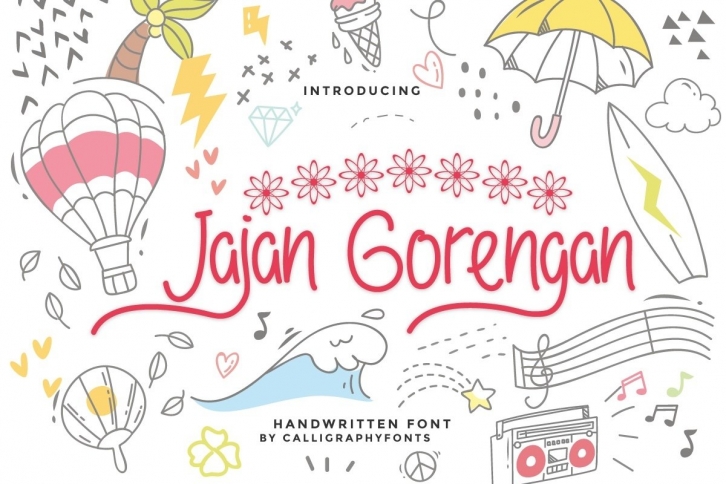
Jajan Gorengan is a beautiful font that was designed by Calligraphy Fonts. It's a great choice for designers and creatives who need such a font. It was released on August 28, 2021 and the file size is 1.14 MB. Jajan Gorengan may give a more youthful, expressive and casual look to your project. It is a very beautiful, refined, elegant, and high-quality font.